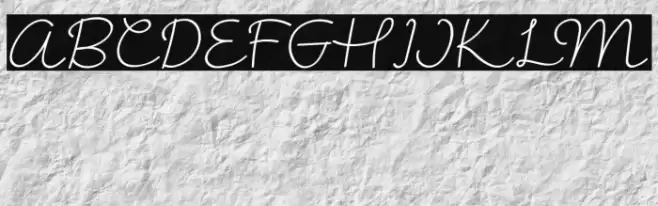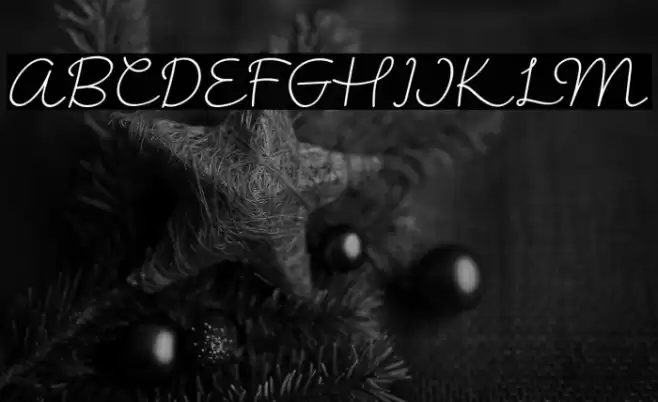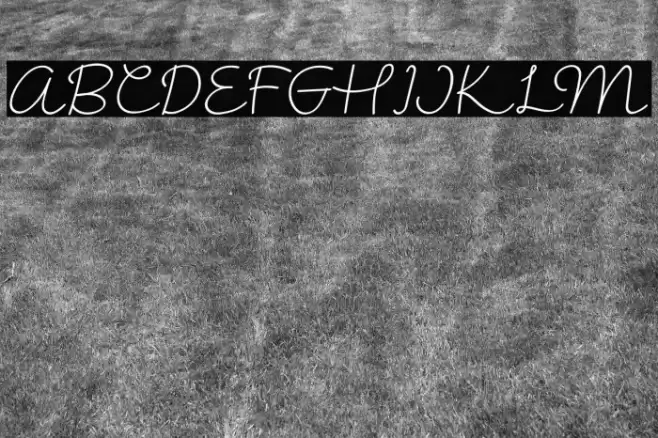
KalimeraRegular Font
KalimeraRegular Description
This font features a flowing, cursive style with elegant, looping strokes that give it a handwritten appearance. The uppercase letters are slightly more structured, maintaining a balance between formality and casualness, while the lowercase letters exhibit a more fluid and connected style. The numerals are consistent with the overall script-like design, maintaining readability with a touch of sophistication. Special characters are seamlessly integrated, enhancing the font's versatility. The overall impression is one of elegance and approachability, making it suitable for a variety of creative projects.
A cursive, handwritten-style font with elegant, flowing strokes from Uncategorized fonts.
- Proposed Projects: Ideal for wedding invitations, greeting cards, personal branding, and elegant packaging designs.
- Overall Style: Elegant, Handwritten
- Use Case: Logos, Invitations, Personal Branding